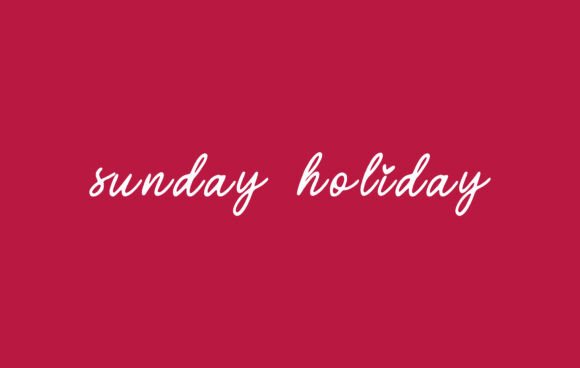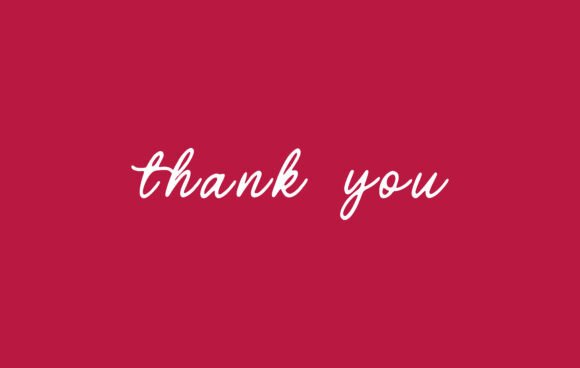
Introducing Groovyluxe Font: The Ultimate Handwritten Font for Creative Expression
Are you a designer, crafty enthusiast, or creative professional looking for a unique and authentic handwritten font to elevate your projects? Look no further than Groovyluxe Font, a romantic and stylish font designed to make your creative ideas shine. In this article, we’ll dive into the features, benefits, and uses of Groovyluxe Font, and explore how it can become your go-to font for a wide range of design projects.
What is Groovyluxe Font?
Groovyluxe Font is an authentic handwritten font that exudes a romantic touch, perfect for designers and crafters seeking to add a personal and elegant feel to their work. This beautifully crafted font is designed to be versatile, legible, and visually stunning, making it ideal for use as both title and body text.
Key Features of Groovyluxe Font
- Authentic Handwritten Style: Groovyluxe Font boasts an authentic handwritten style that adds a touch of warmth and personality to your designs.
- Romantic Touch: The font’s romantic undertones make it perfect for designs that require a sense of elegance and sophistication.
- Legibility: Groovyluxe Font is designed to be highly legible, ensuring that your text is easy to read and understand.
- Versatility: This font is perfect for a wide range of design projects, from magazine headlines and social media graphics to branding, wedding invitations, and more.
Uses of Groovyluxe Font
Groovyluxe Font is an incredibly versatile font that can be used for various design projects, including:
- Magazine Headlines: Add a touch of elegance and sophistication to your magazine headlines with Groovyluxe Font.
- Social Media Graphics: Create eye-catching social media graphics that stand out from the crowd with this beautiful font.
- Branding: Establish a strong brand identity with Groovyluxe Font, perfect for logos, business cards, and more.
- Wedding Invitations: Make your wedding invitations truly special with this romantic and elegant font.
- Cards and Stationery: Add a personal touch to your cards, letters, and stationery with Groovyluxe Font.
Why Choose Groovyluxe Font?
With so many fonts available, why choose Groovyluxe Font? Here are just a few reasons why this font stands out:
- Unique Style: Groovyluxe Font offers a unique and authentic handwritten style that sets it apart from other fonts.
- Ease of Use: This font is incredibly easy to use, making it perfect for designers and crafters of all skill levels.
- High Legibility: Groovyluxe Font is designed to be highly legible, ensuring that your text is easy to read and understand.
Groovyluxe Font is an exceptional handwritten font that offers a unique blend of romance, elegance, and versatility. Whether you’re a designer, crafty enthusiast, or creative professional, this font is sure to become a favorite in your collection. With its authentic handwritten style, legibility, and ease of use, Groovyluxe Font is the perfect choice for a wide range of design projects. So why wait? Get creative with Groovyluxe Font today and take your designs to the next level!